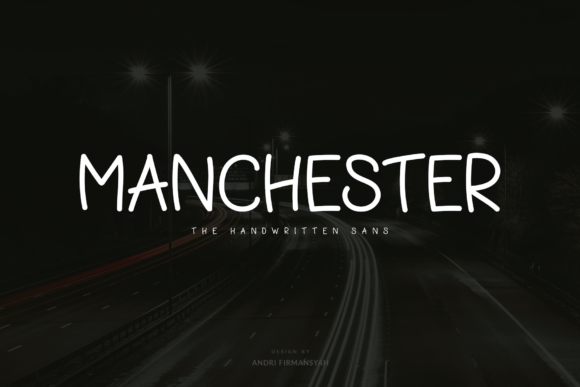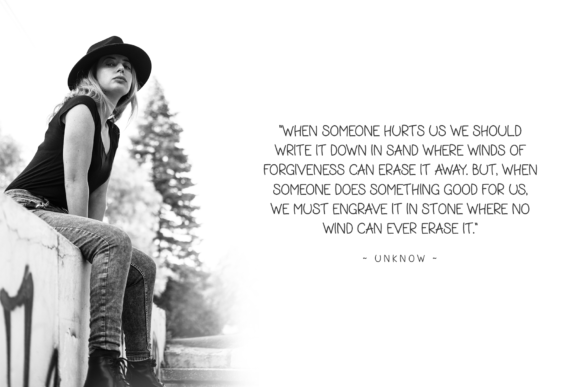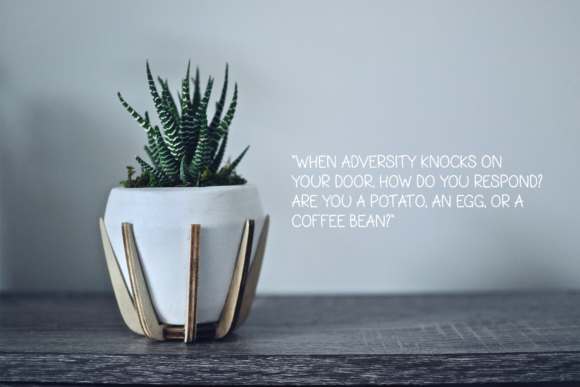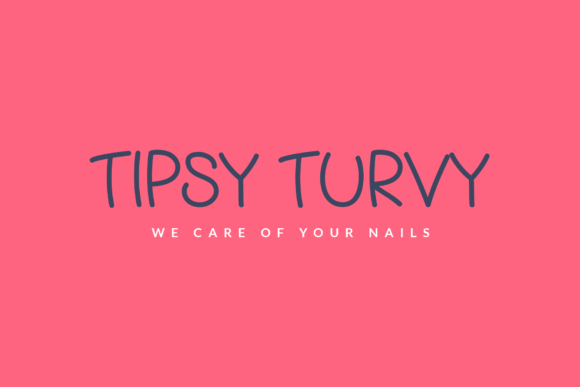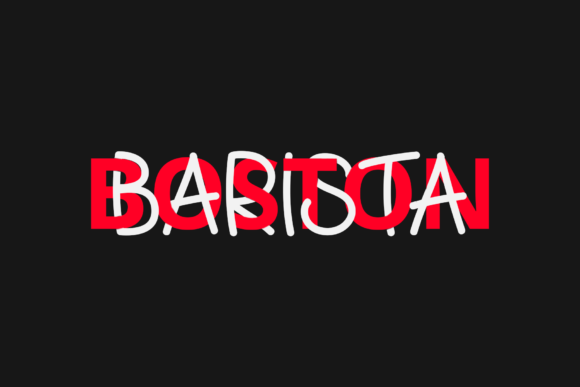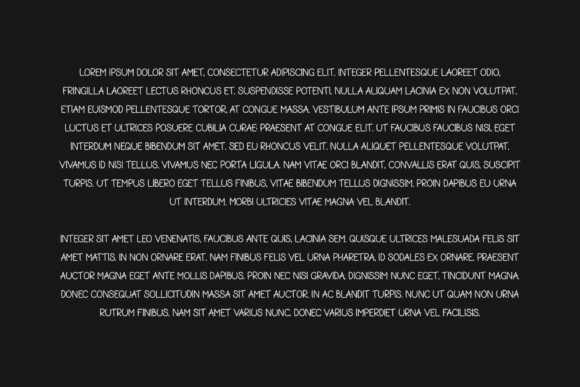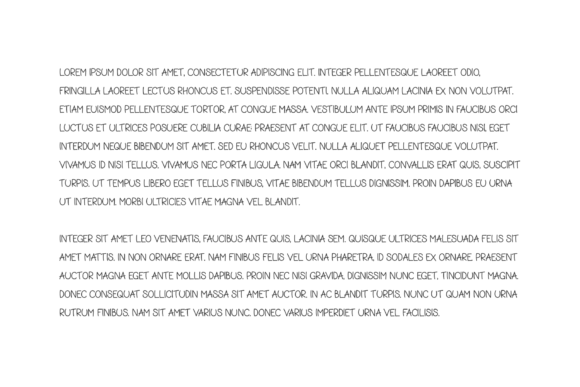
Manchester Font
About Manchester Font
Manchester is a cute and friendly handwritten font. A little bit quirky, this font looks incredibly adept on a wide variety of contexts!